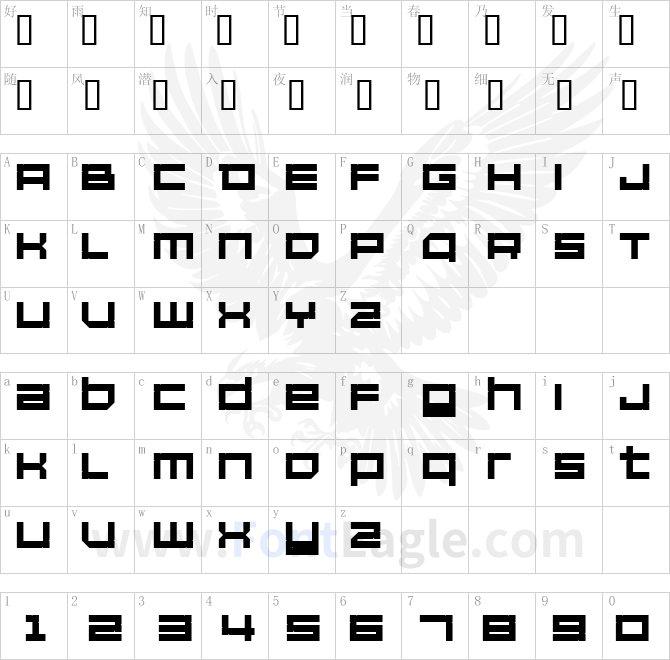
- Font name:Unfinished
Unfinished-Black is a great font, widely used in graphic design, single-page menu design, poster design and other fields, and is deeply loved by designers.Unfinished-Black download.